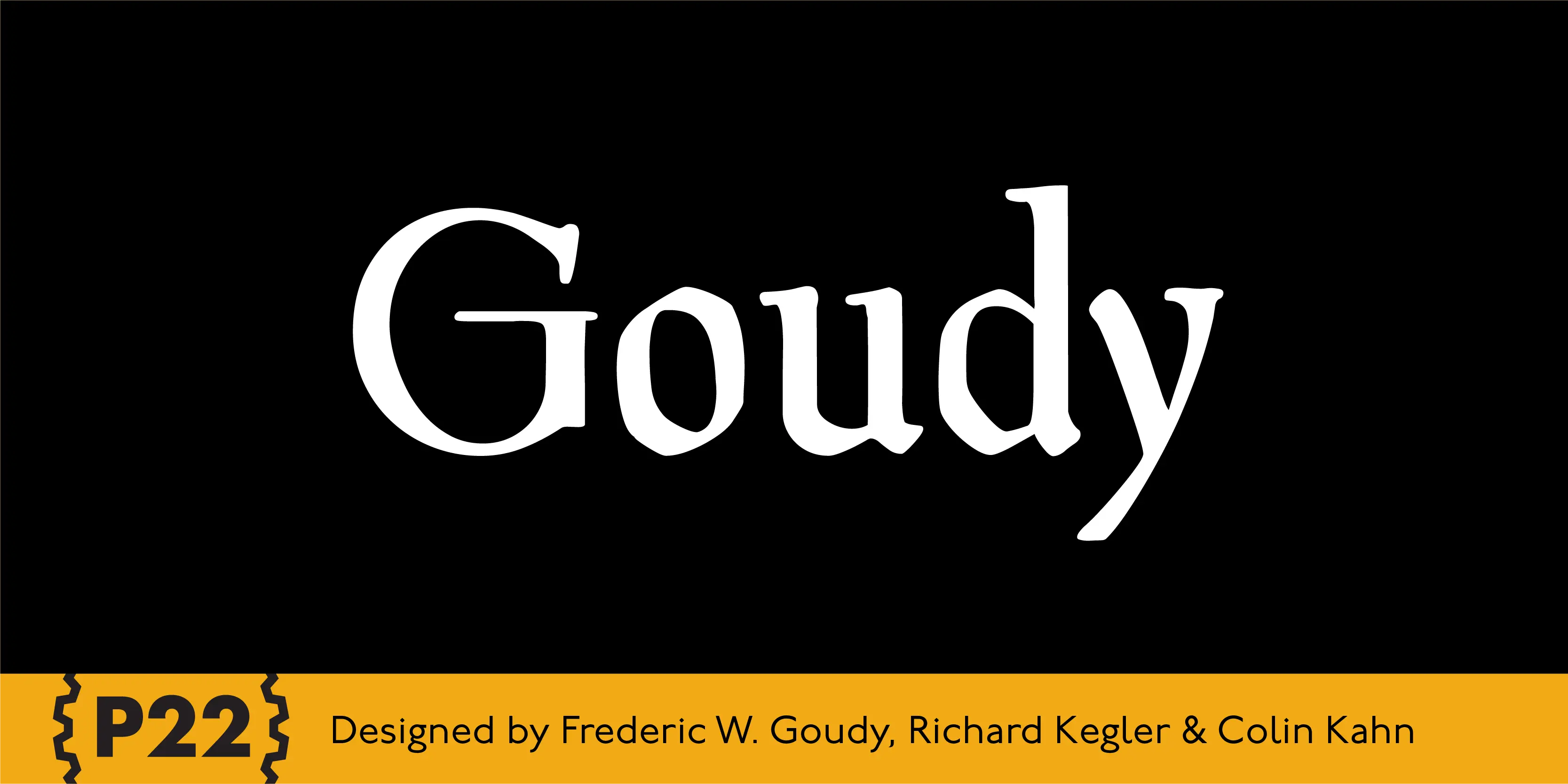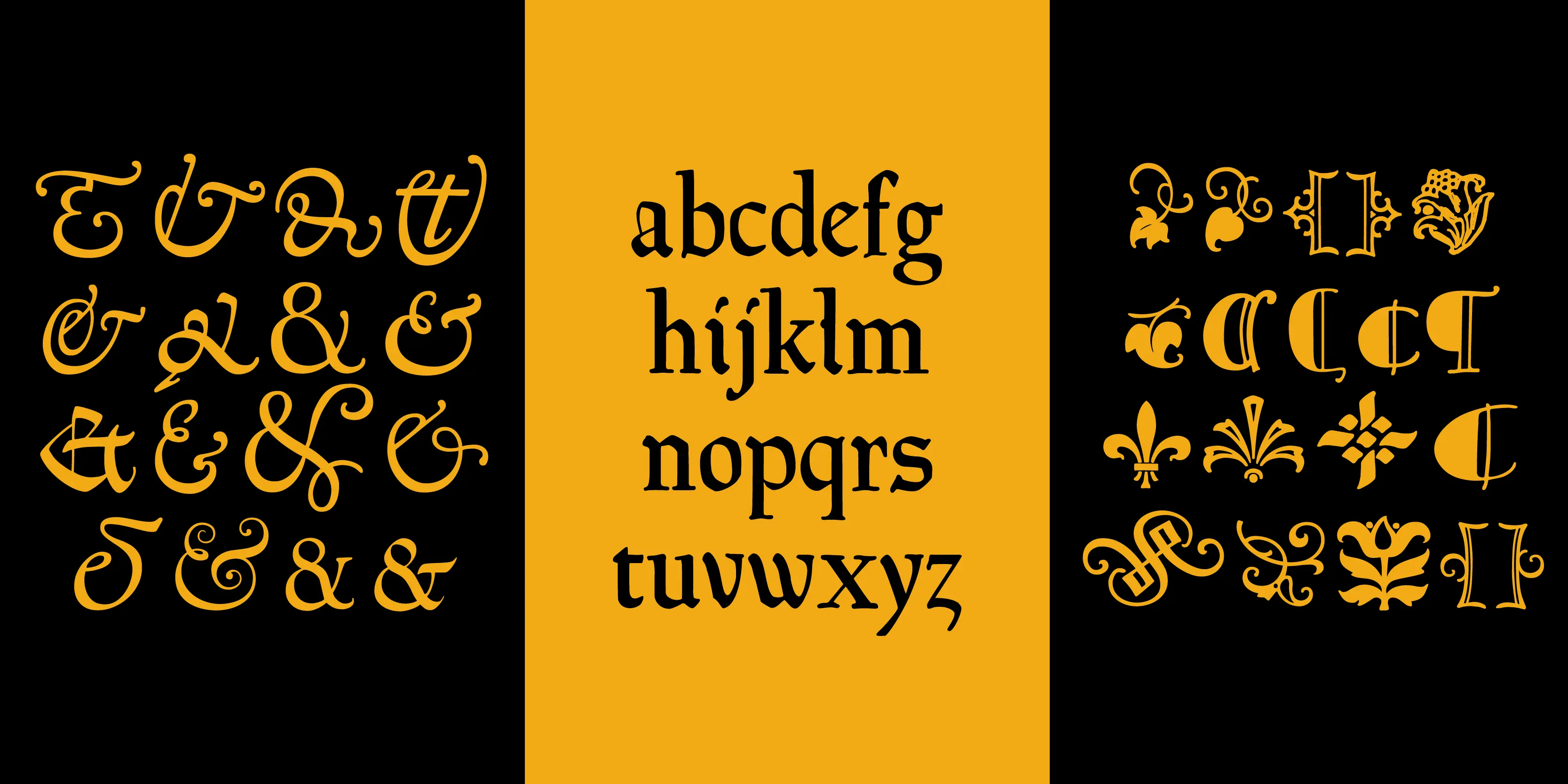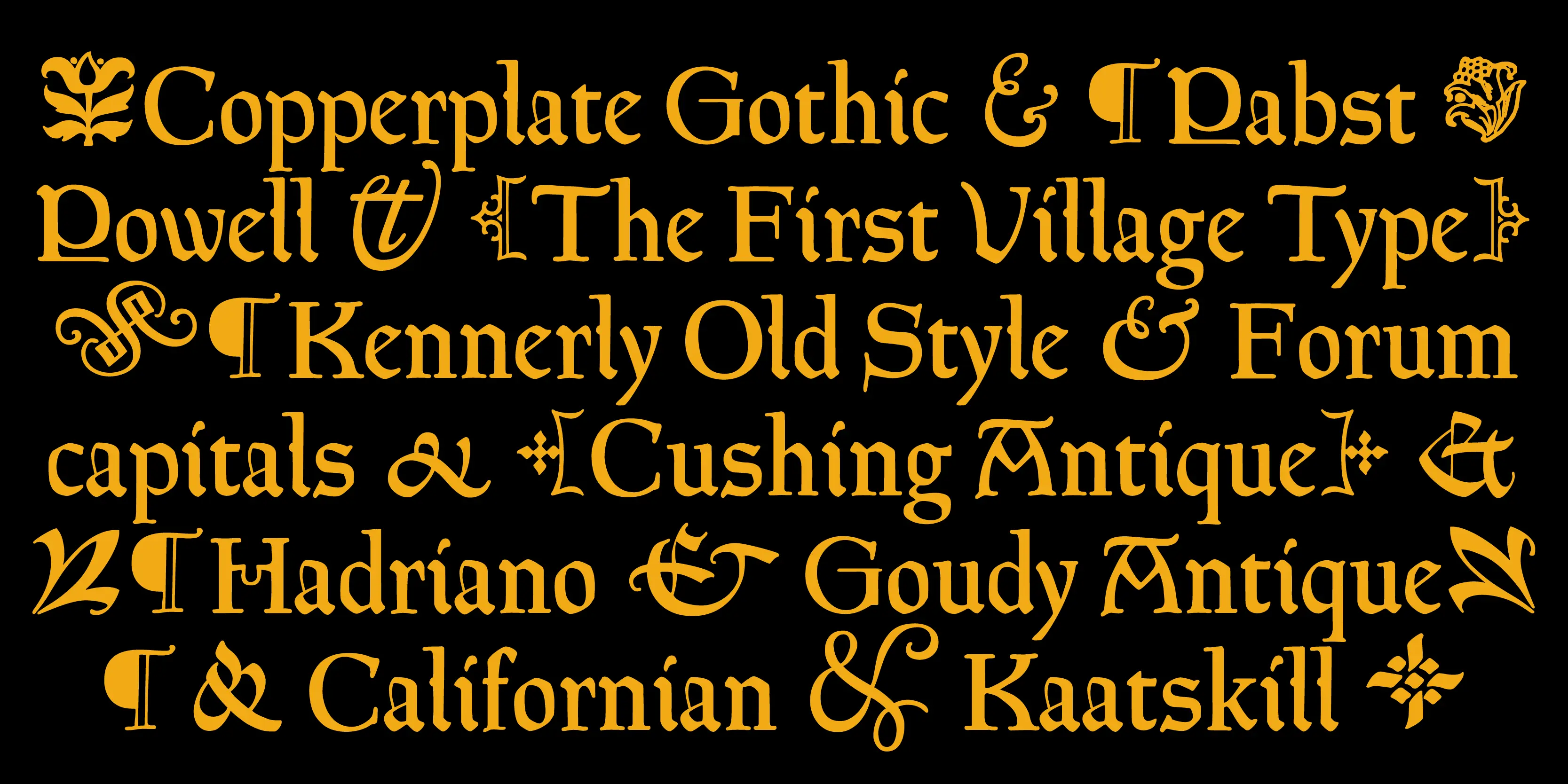
Goudy Font Family
Goudy
P22 Goudy is a family made for the press. It includes an everyday blackletter typeface and two sets of ornaments, perfect for setting a turn-of-the-twentieth-century vibe. Goudy Aries is one of the rarest Arts & Crafts faces designed by Goudy. It was originally made for a private press in Eden, New York. With 52 decorative ornaments and 52 different ampersands one can imagine the beautiful typographic pages waiting to emerge.